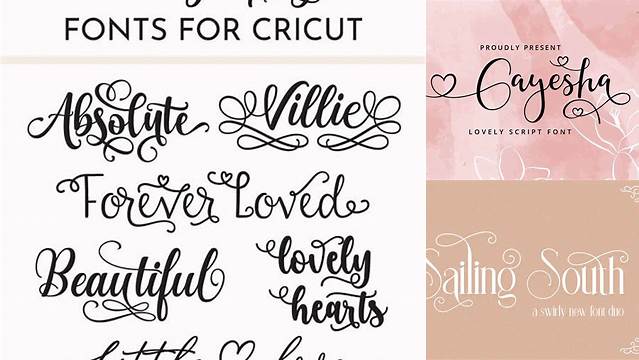
Cricut Swirly Fonts: A Guide To Elegant Designs
Hey crafters! Are you looking to add a touch of elegance and flair to your Cricut projects? Then you've come to the right place! Today, we're diving deep into the wonderful world of cricut swirly fonts. These fonts, also known as calligraphy or script fonts, are perfect for adding a personal and sophisticated touch to invitations, cards, home decor, and so much more. So, buckle up, grab your favorite Cricut machine, and let's explore the best swirly fonts for your next project!
What are Cricut Swirly Fonts?
Cricut swirly fonts, in essence, are those beautiful, flowing fonts that mimic handwriting. They're characterized by their elegant curves, loops, and flourishes, giving your projects a touch of personality and sophistication. Think about it – a simple “Thank You” note becomes so much more special when written in a graceful swirly font. These fonts are incredibly versatile and can be used for a wide range of projects, from wedding invitations and personalized gifts to home decor and business signage. The beauty of cricut swirly fonts lies in their ability to transform the ordinary into the extraordinary, adding a handmade, artisanal feel to anything you create with your Cricut. But where do you even start looking for the perfect one? Well, keep reading, guys, we've got you covered!
Why Use Swirly Fonts in Your Cricut Projects?
Using cricut swirly fonts in your projects opens up a whole new realm of creative possibilities. They add a touch of elegance and sophistication that other font styles simply can't match. Imagine creating a beautiful vinyl decal for your living room wall with a flowing, swirly quote. Or picture designing stunning wedding invitations with calligraphy-inspired fonts that exude romance. The versatility of these fonts makes them perfect for a wide variety of projects, from personalized gifts and home décor to business signage and event stationery. A swirly font can transform a simple design into something truly special, giving it a unique and handmade feel. Beyond aesthetics, cricut swirly fonts also allow you to express your creativity and personalize your projects in a way that reflects your individual style. So, ditch the boring, blocky fonts and embrace the beauty of swirls and flourishes! You won't regret it.
How to Choose the Right Swirly Font for Your Project
Choosing the right cricut swirly font can feel a little overwhelming with so many options available, but don’t worry, we’re here to guide you! First, consider the overall tone and style of your project. Are you going for a formal and elegant look, or something more casual and playful? A delicate, thin script might be perfect for wedding invitations, while a bolder, more whimsical swirly font could be ideal for children's birthday cards. Think about the readability of the font as well. While a super fancy, intricate script might look beautiful, it’s crucial that your message is still easy to read. Consider the size of your project and the amount of text you’ll be using. A very elaborate swirly font might not be suitable for small text sizes. Finally, don’t be afraid to experiment! Try out different cricut swirly fonts and see what looks best for your specific project. Most importantly, have fun with it and let your creativity shine!
Top Free Swirly Fonts for Cricut
Alright, let's dive into some amazing free cricut swirly fonts that you can start using right away! There are tons of fantastic options out there, so you don't have to break the bank to get a beautiful script for your projects. Websites like Dafont, FontSpace, and Google Fonts offer a huge selection of free fonts, including a wide variety of swirly styles. Some popular choices include Alex Brush, a classic and elegant script; Great Vibes, a flowing and romantic font; and Lobster, a bold and retro-inspired swirly font. Remember to always check the license terms for each font to ensure it's okay to use for your specific project, especially if you're planning on selling items you create. Exploring these free resources is a great way to discover your favorite cricut swirly fonts and add some flair to your crafts without spending a dime! So, go ahead and get your font-finding on!
Premium Swirly Fonts Worth the Investment
While there are fantastic free cricut swirly fonts available, sometimes investing in a premium font can really elevate your designs. Premium fonts often offer more refined details, unique character designs, and broader licensing options for commercial use. Websites like Creative Market, Fontspring, and MyFonts are excellent sources for high-quality premium fonts. Some designers also create fonts, so search to find some specific designs. Think of it as an investment in your crafting arsenal! Some popular premium swirly fonts include those with unique ligatures (where letters connect in a particularly stylish way), alternate characters (offering variations of the same letter), and extra design elements like swashes and flourishes. These little extras can make a huge difference in the overall look and feel of your project. If you're serious about your crafting and want to create truly professional-looking designs, exploring premium cricut swirly fonts is definitely worth considering. You'll be amazed at the difference a well-designed font can make!
Using Swirly Fonts for Invitations and Cards
Cricut swirly fonts are an absolute game-changer when it comes to creating stunning invitations and cards! They add a touch of elegance and personalization that's perfect for special occasions. Whether you're designing wedding invitations, birthday cards, thank-you notes, or anything in between, a beautiful swirly font can really elevate your design. Think about using a delicate script for a formal event, or a more playful and whimsical swirly font for a casual gathering. You can pair your swirly font with other font styles for contrast and visual interest. For example, you might use a swirly font for the main heading or names, and a simpler sans-serif font for the body text. Experiment with different colors and paper textures to create a truly unique and memorable invitation or card. The possibilities are endless! So, let your creativity flow and use cricut swirly fonts to create invitations and cards that your recipients will absolutely adore.
Creating Personalized Gifts with Swirly Fonts
Looking for a way to make your gifts extra special? Cricut swirly fonts are your secret weapon! Personalizing a gift with a beautiful swirly font adds a touch of thoughtfulness and shows the recipient you truly care. Imagine a cozy blanket embroidered with a loved one's name in an elegant script, or a personalized mug with a heartfelt message in a flowing swirly font. You can use your Cricut machine to cut vinyl decals for mugs, tumblers, and other drinkware, or to create iron-on designs for clothing and tote bags. You can even use swirly fonts to create personalized labels for candles, soaps, and other homemade gifts. The beauty of cricut swirly fonts is that they can transform an ordinary gift into a cherished keepsake. So, get creative and use these fonts to add a personal touch to your next gift-giving occasion!
Designing Home Decor with Cricut Swirly Fonts
Transform your living space with the magic of cricut swirly fonts! They're a fantastic way to add a personal and stylish touch to your home decor. Think about creating a beautiful wall decal with an inspiring quote in a flowing script, or designing custom throw pillows with personalized monograms in an elegant swirly font. You can use your Cricut machine to cut vinyl decals for walls, mirrors, and furniture, or to create stencils for painting on wood signs and canvases. You can even use swirly fonts to personalize picture frames, vases, and other decorative items. A well-chosen swirly font can add a touch of sophistication and personality to any room in your home. So, unleash your inner interior designer and use cricut swirly fonts to create a home that truly reflects your style!
Using Swirly Fonts for Stencils
Did you know you can use cricut swirly fonts to create beautiful stencils? Stencils are a fantastic way to add designs to a wide range of surfaces, such as wood, fabric, and even walls. Simply cut your swirly font design out of stencil material using your Cricut machine, and then use paint or ink to transfer the design onto your chosen surface. Stencils are perfect for creating signs, home decor items, and personalized gifts. When choosing a swirly font for a stencil, it's important to consider the size and complexity of the design. Intricate swirly fonts with thin lines might be difficult to stencil, so it's best to choose a font with bolder lines and simpler shapes. You can also use the